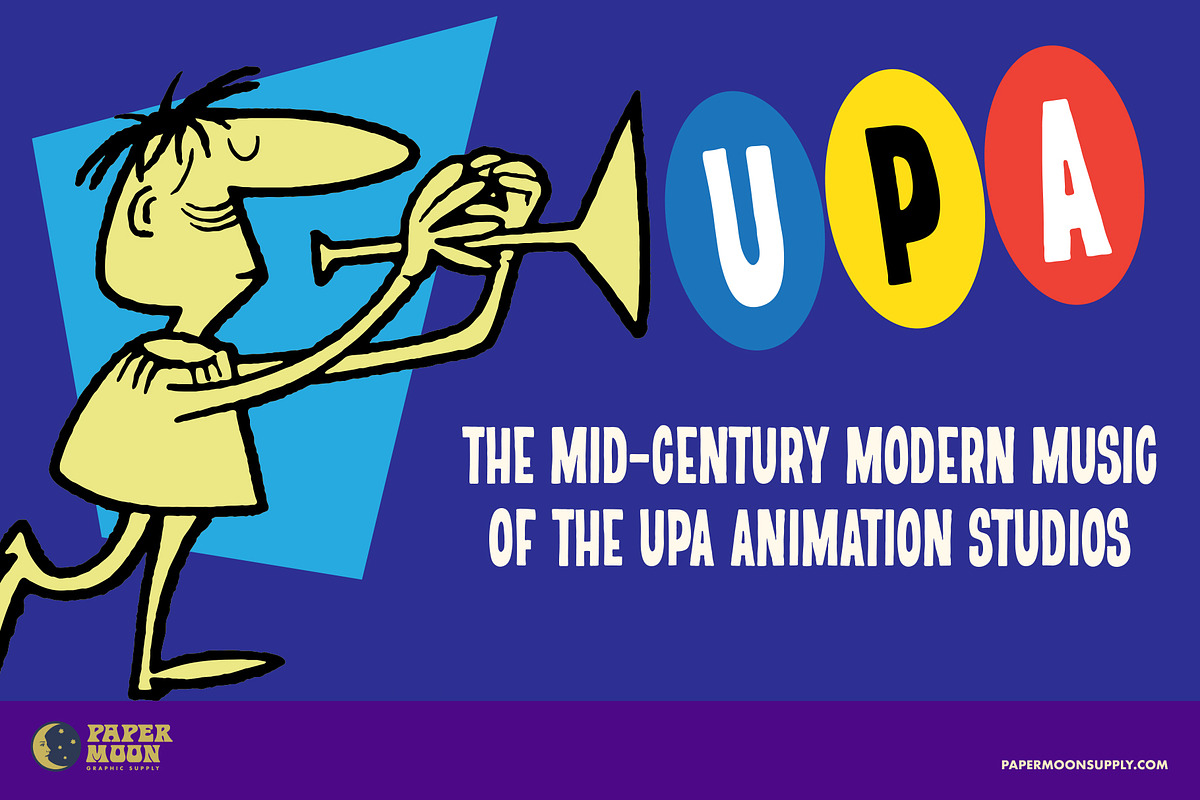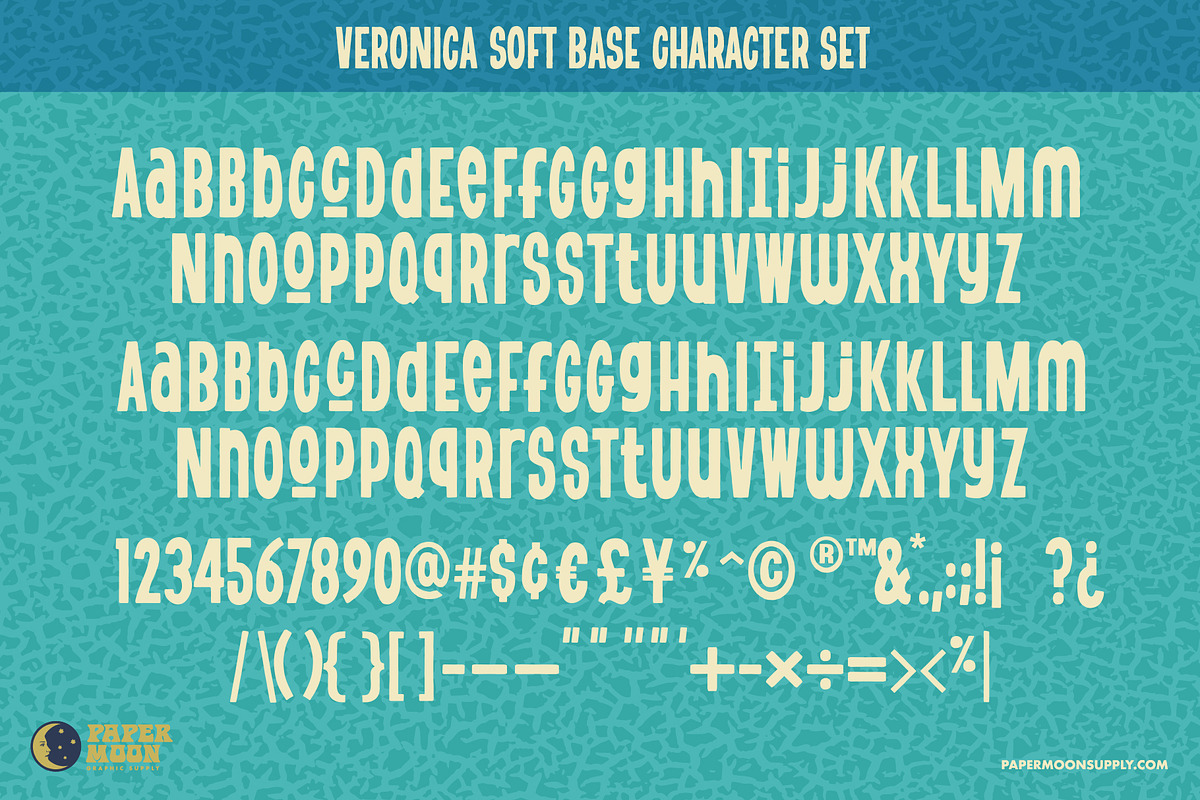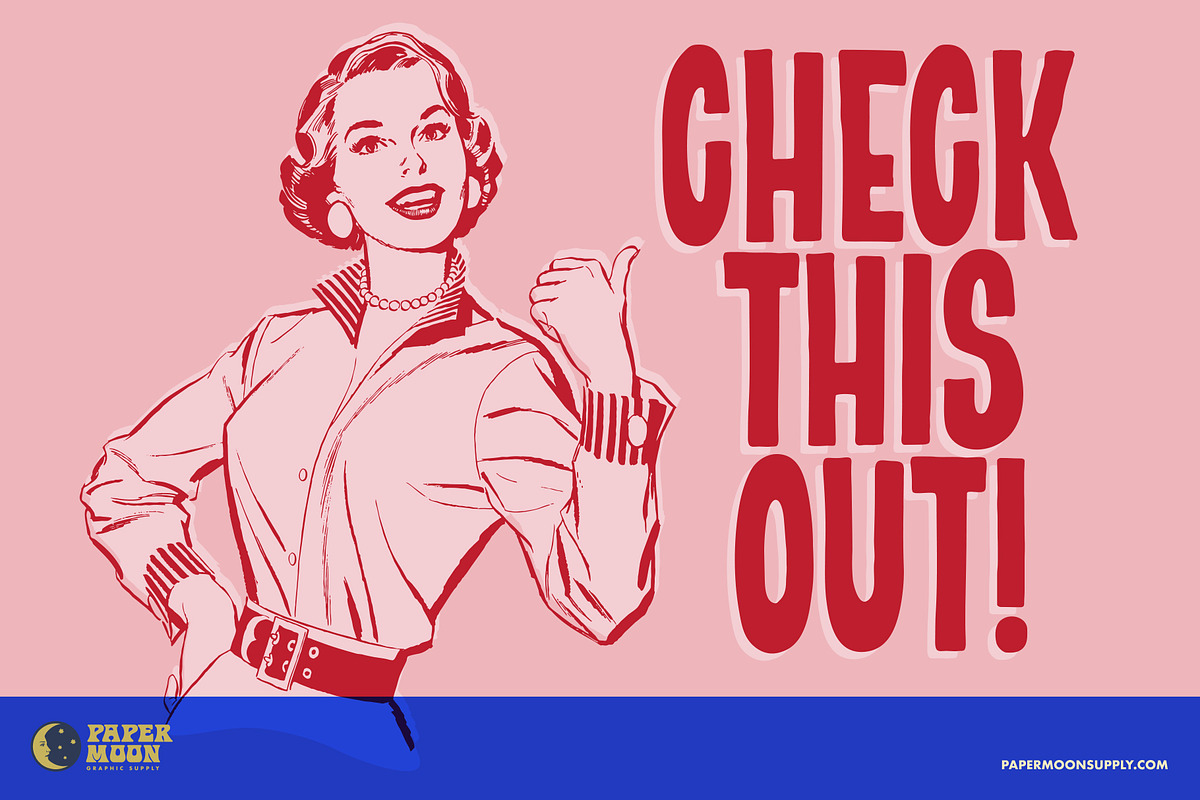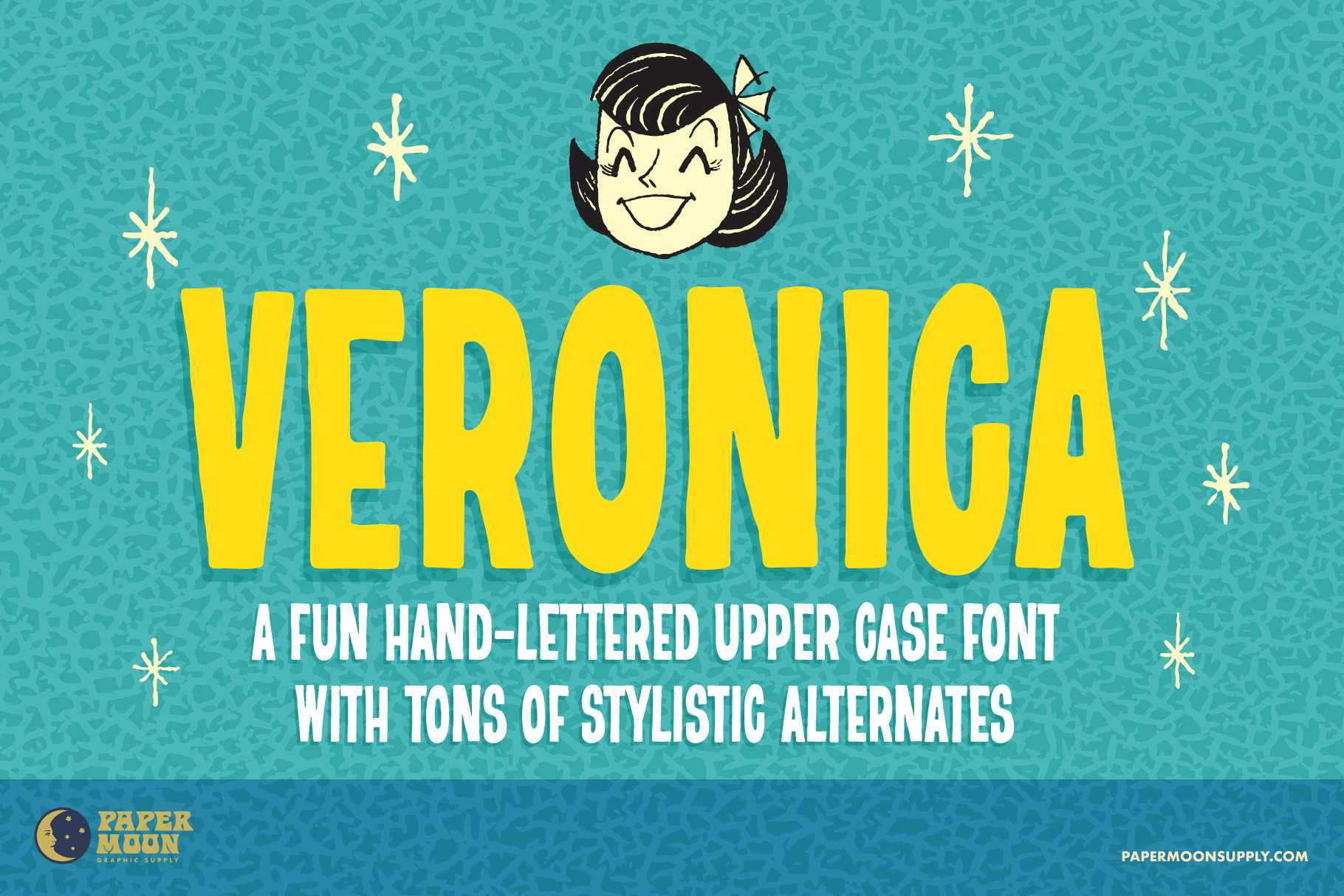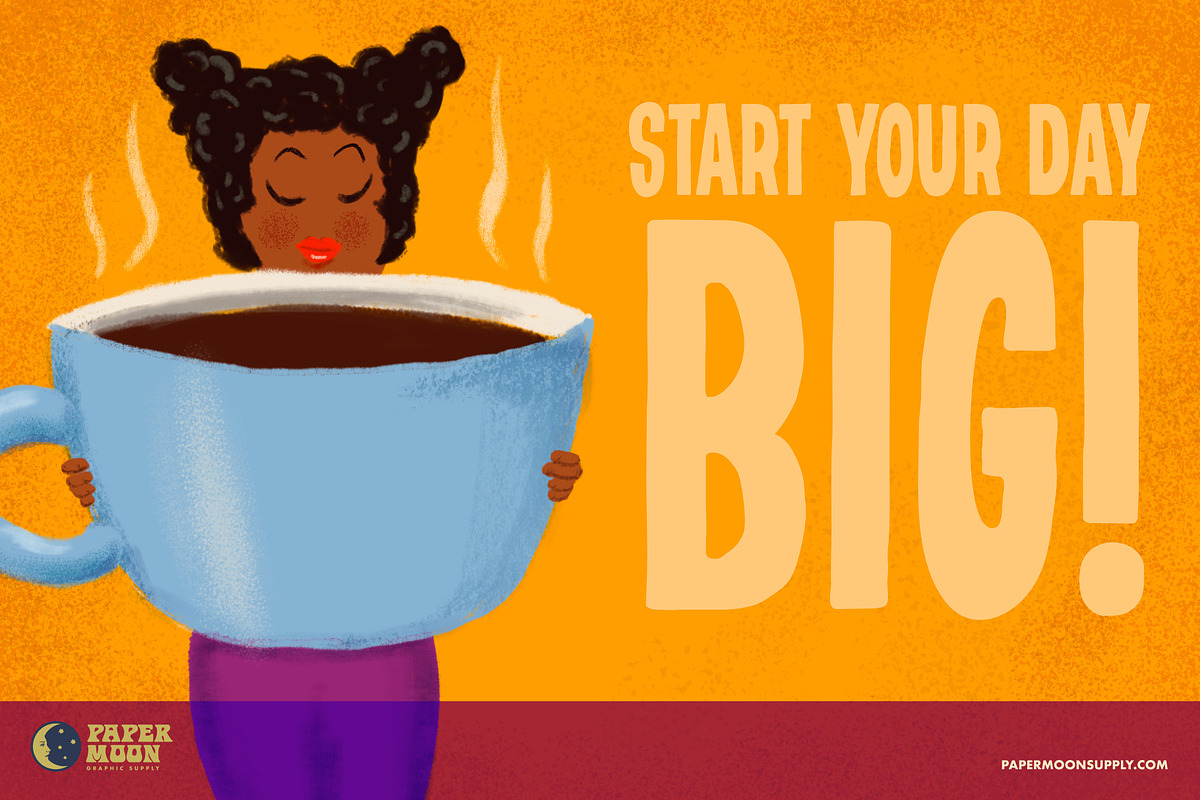
Veronica Hand-Drawn Mid-Century Font
A new digitized hand-drawn Mid-Century Modern font
Veronica was inspired by Mid-Century Modern type used in vintage cartoons and advertising.
- Two versions
- Over 50 stylistic alternates
- Contextual alternates to avoid consecutive letter repeats
- Complete alphabet, number, and punctuation sets
Veronica was developed by award-winning illustrator and designer Scott Banks.